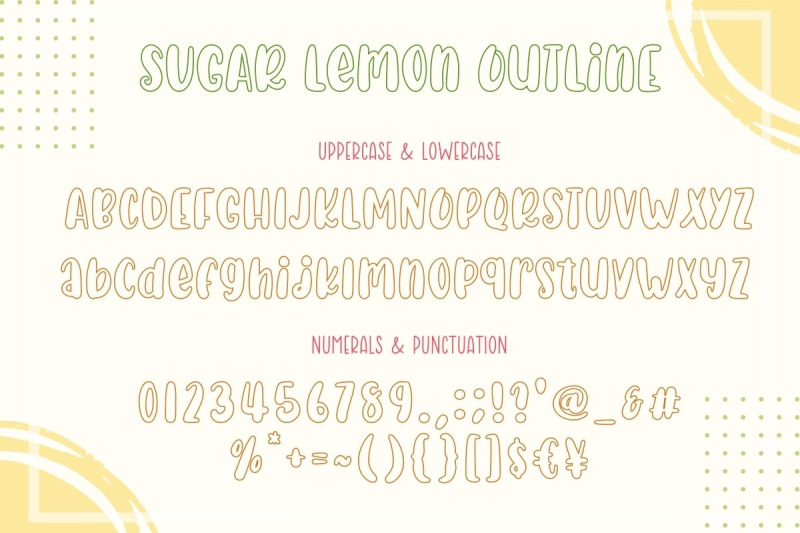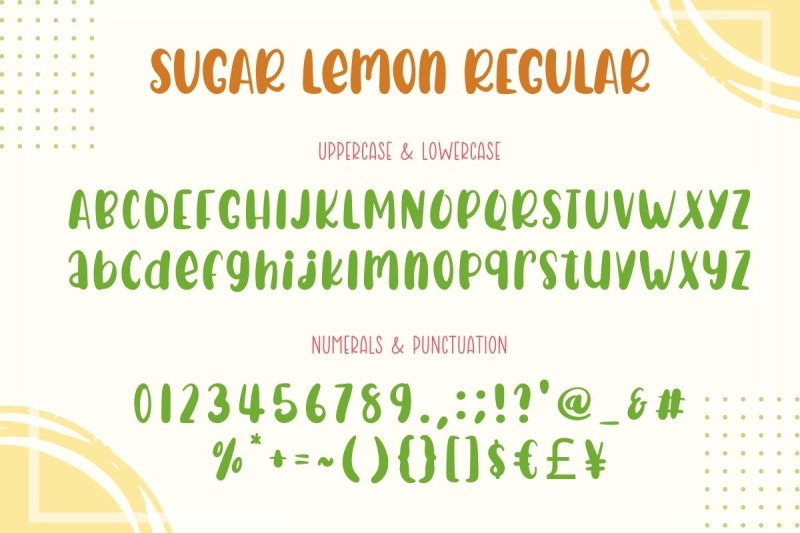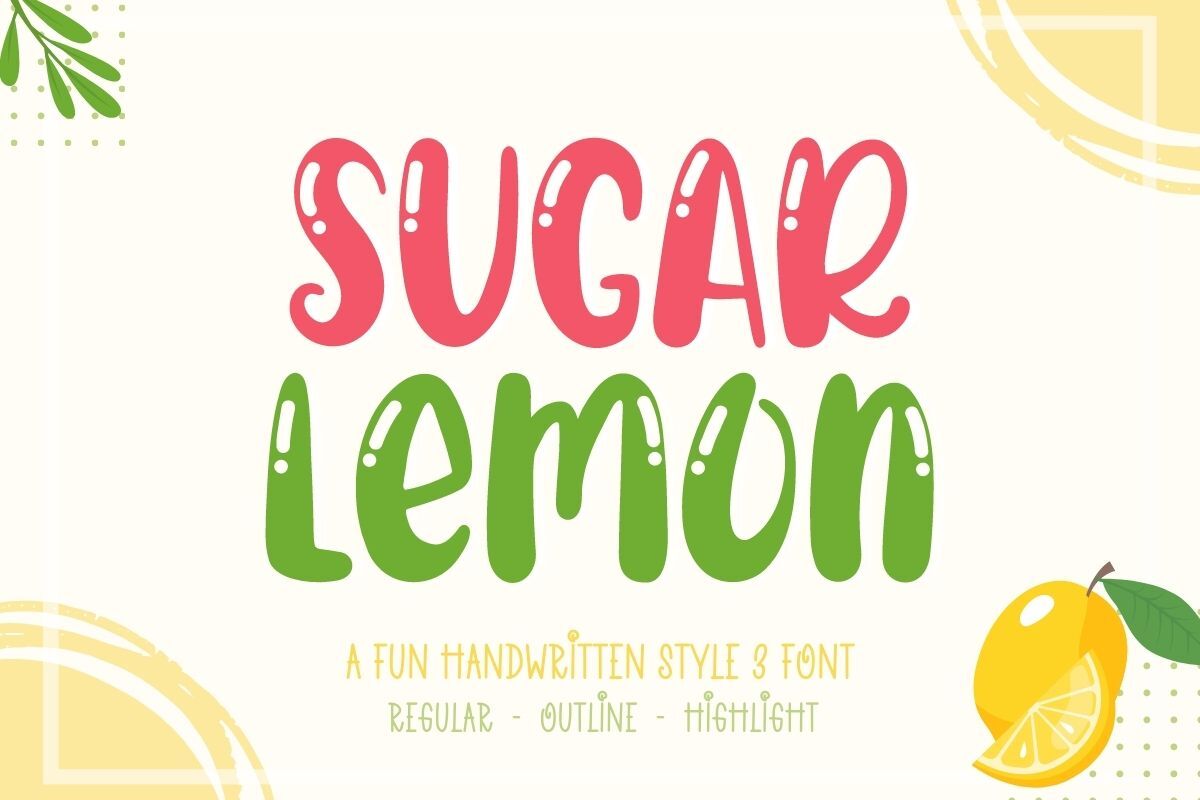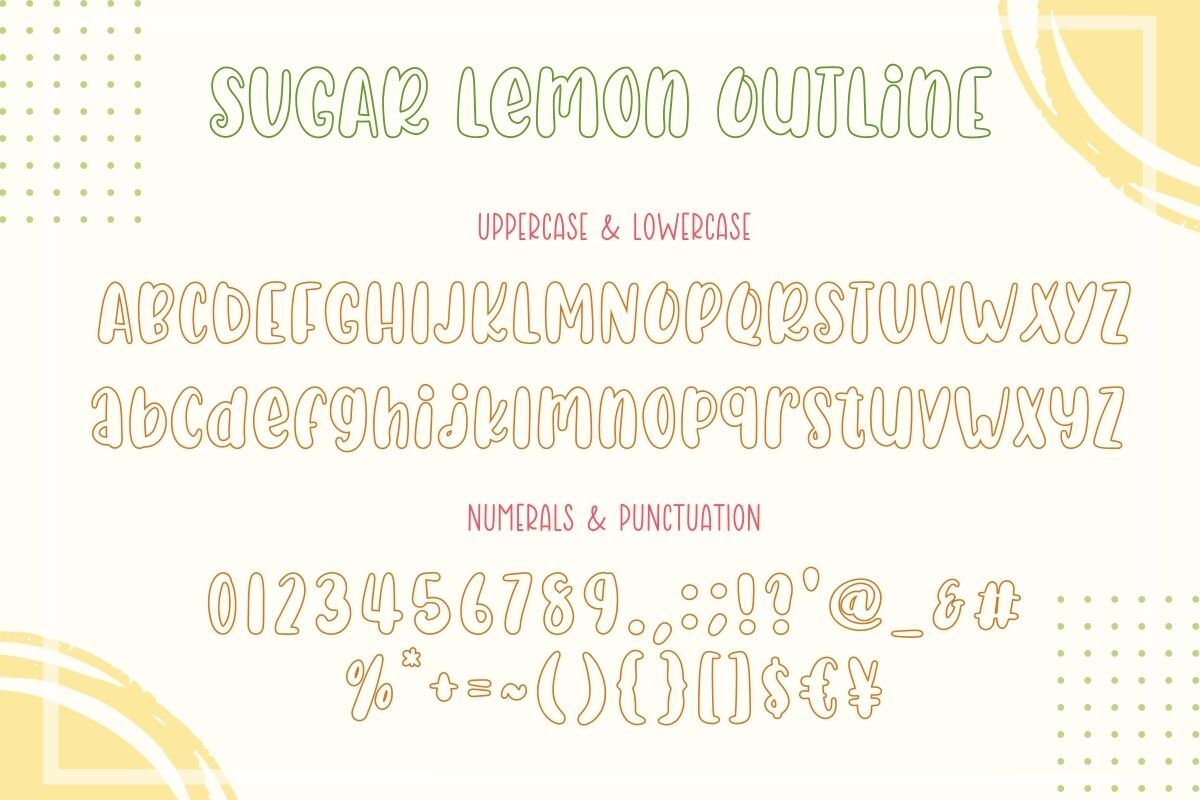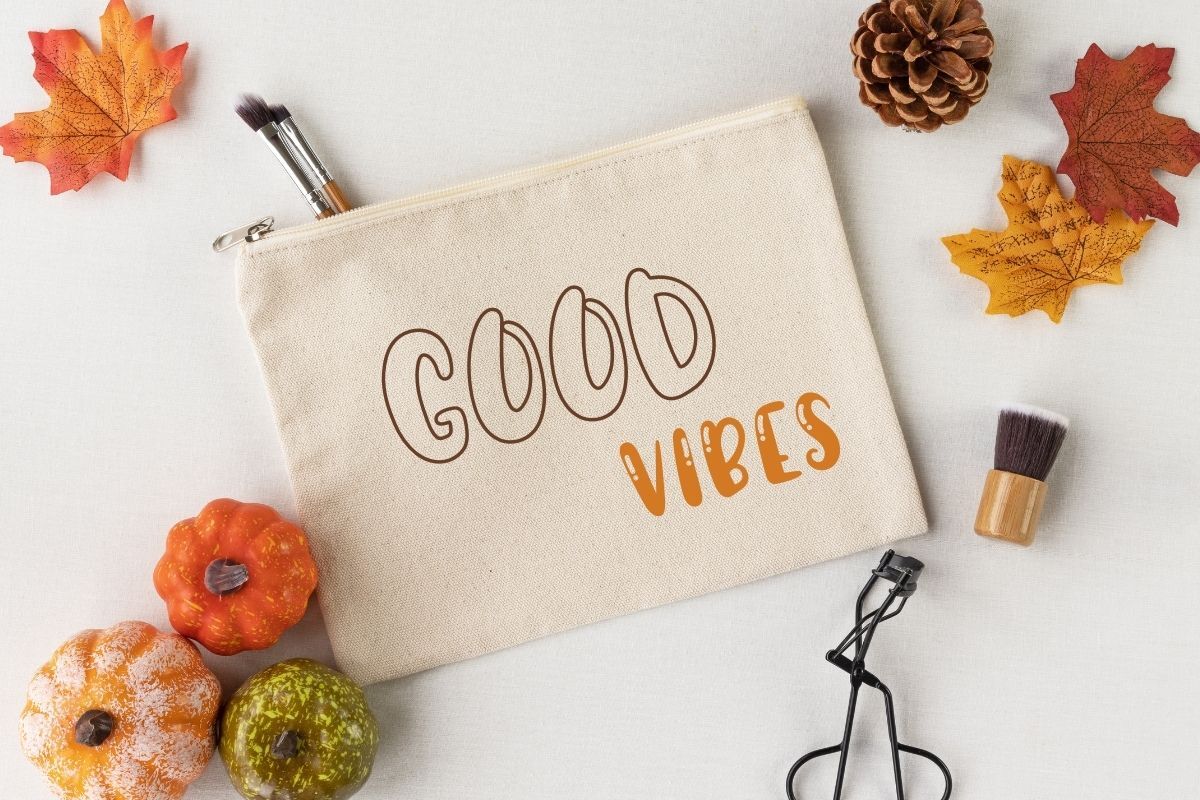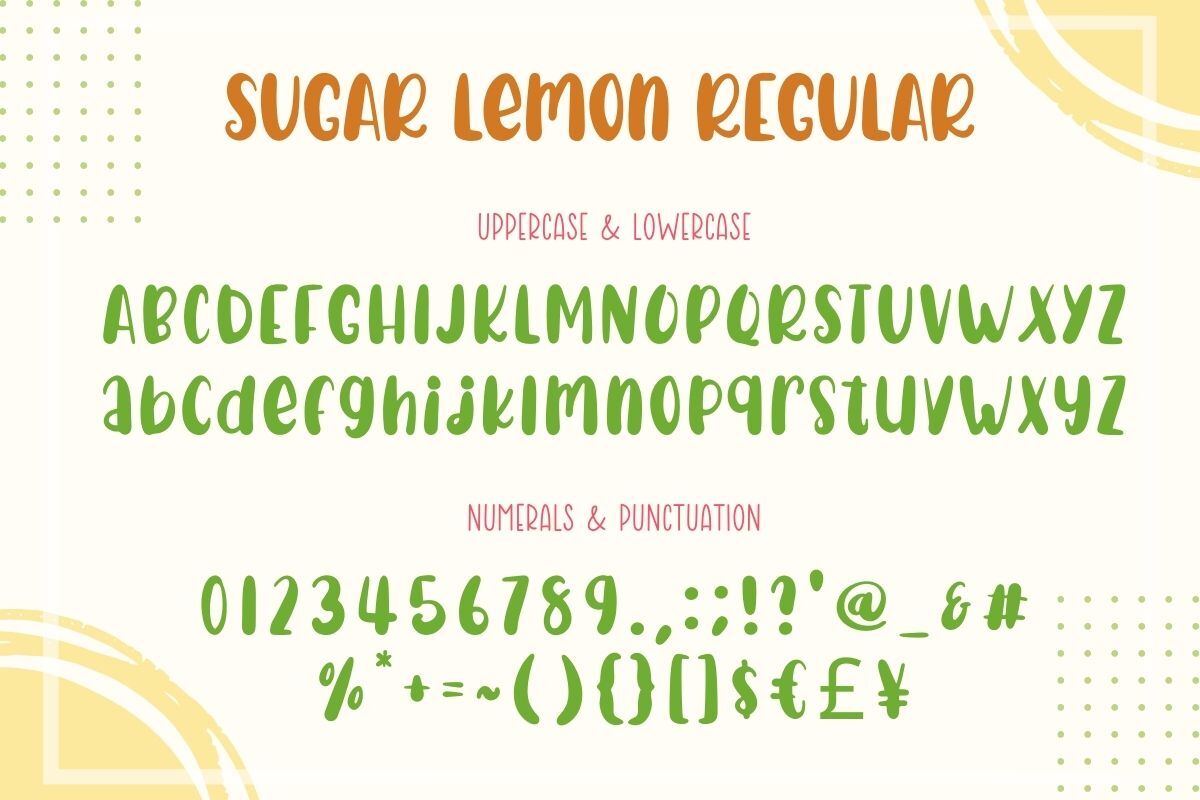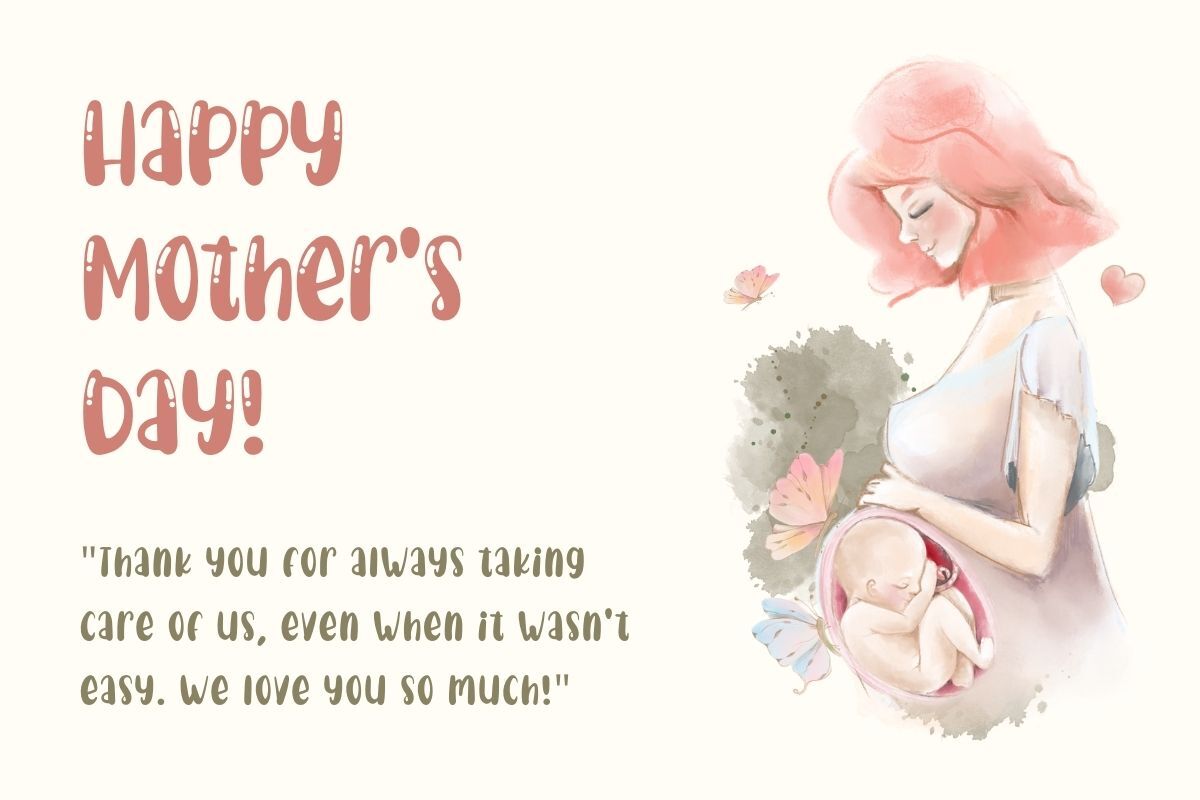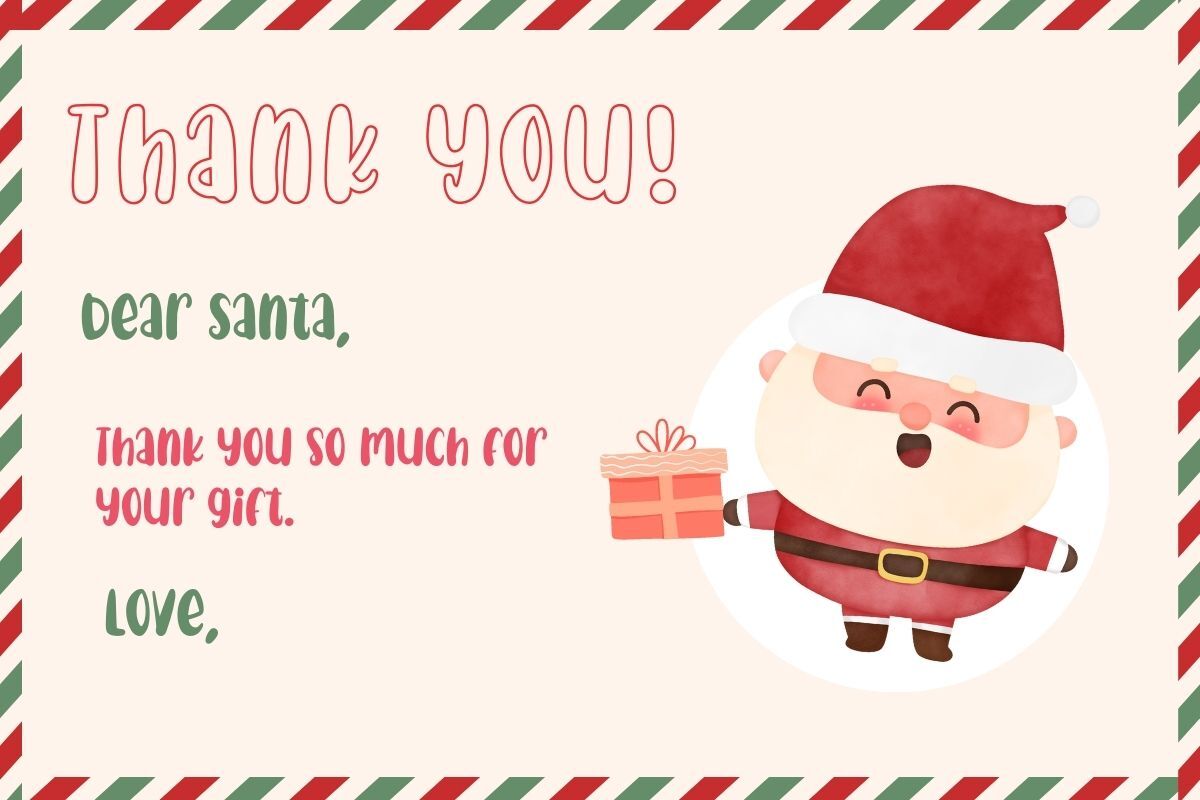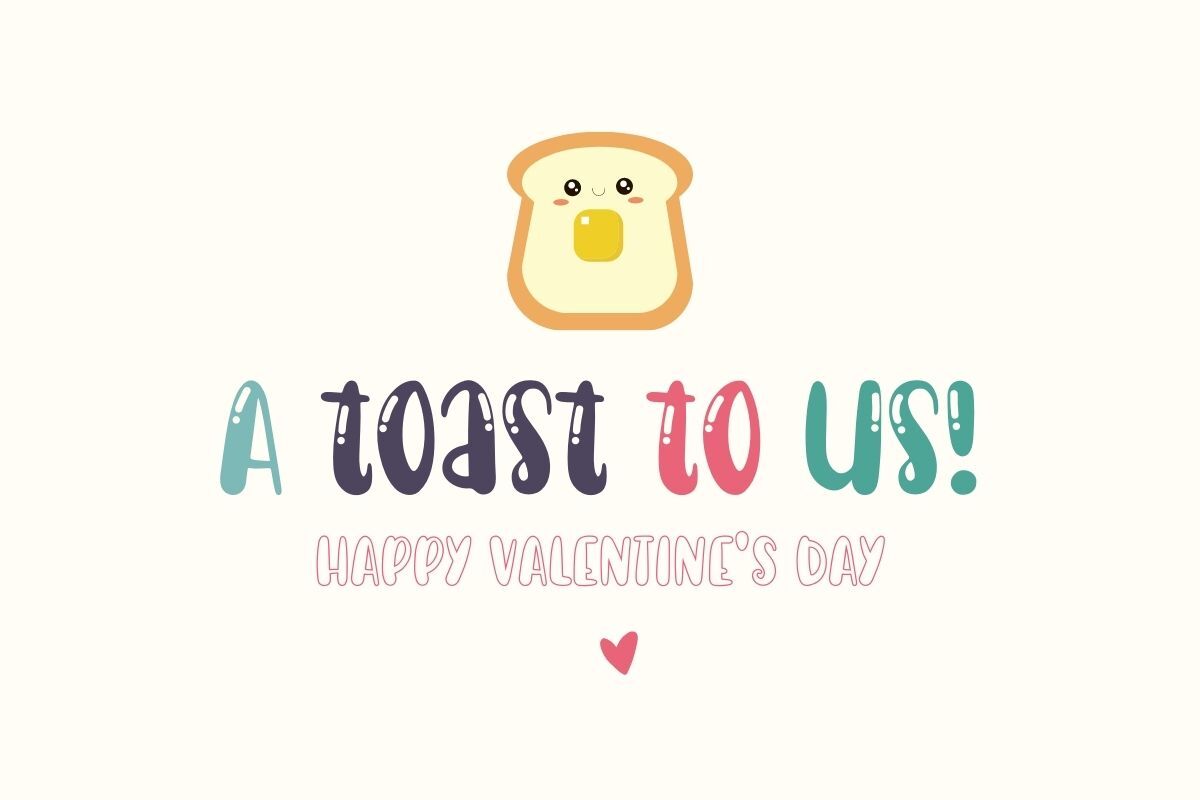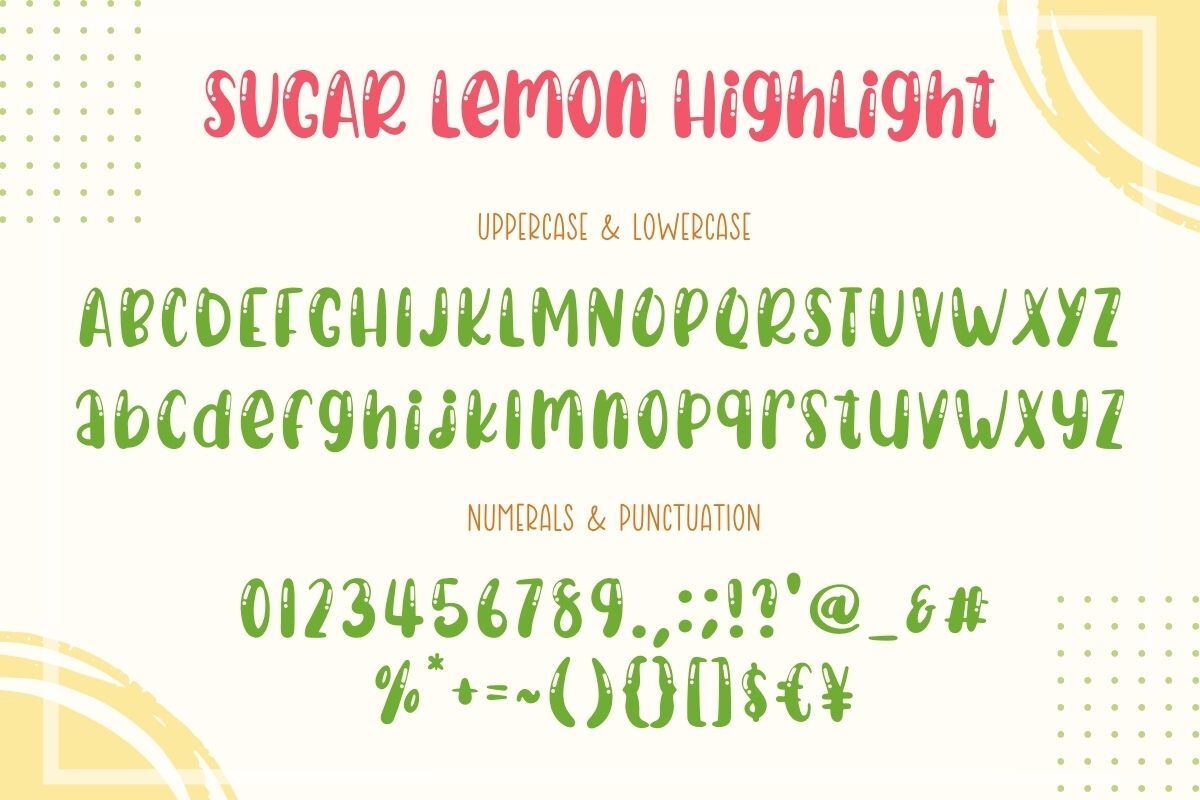
Sugar Lemon Font
Sugar Lemon is a fun display and handwritten font. There are three styles : Regular, outline and highlight. You can have fun mixing and matching. Perfect for creating a wide variety of new designs to match products such as banners, content, mugs, cards, shirts, stationery, social media posts, and more! **You will receive 9 Files: 1.-.ttf file 3 files. 2. -.otf file 3 files. 3. -.woff file 3 files. **Please make sure the program/software you are using accepts otf, woff, ttf font files. ❤️ Thank you! ❤️